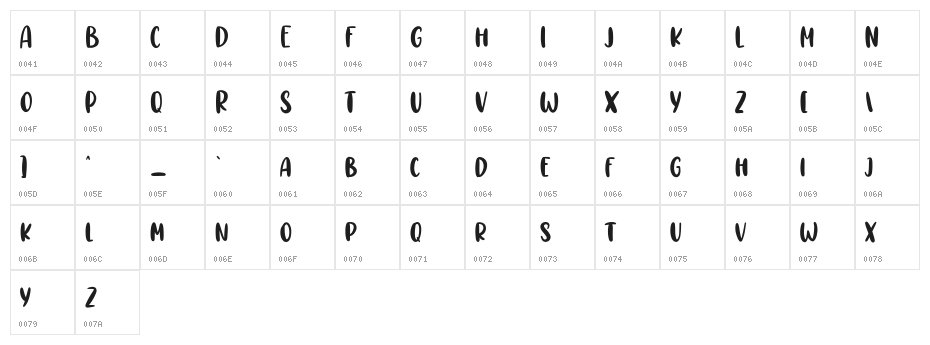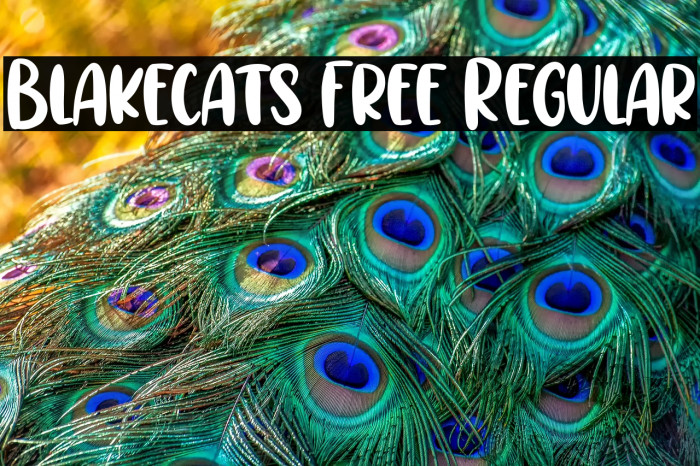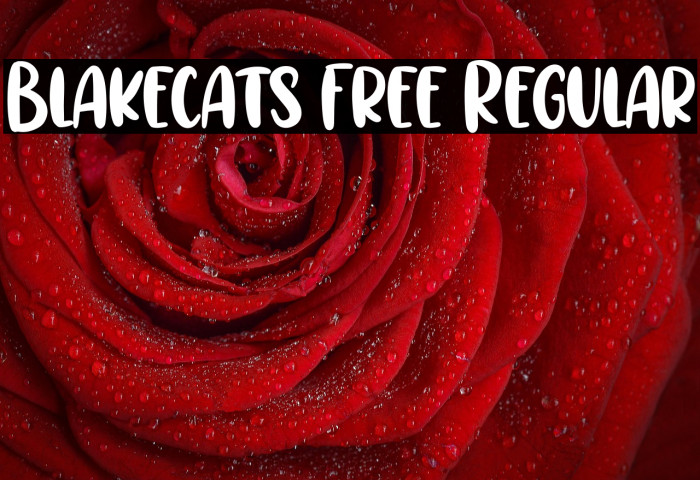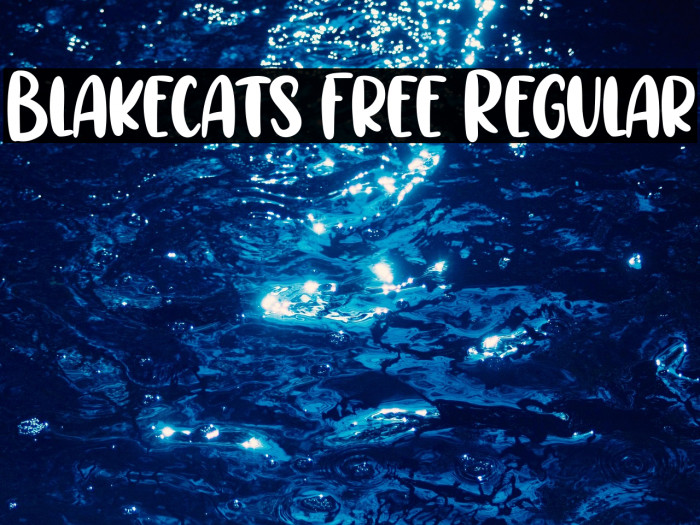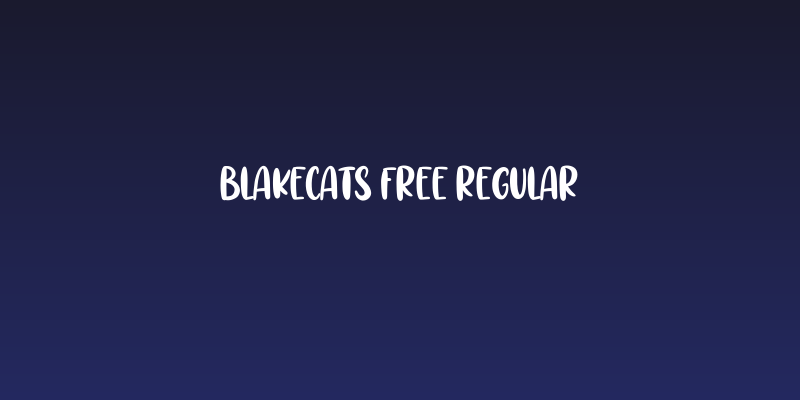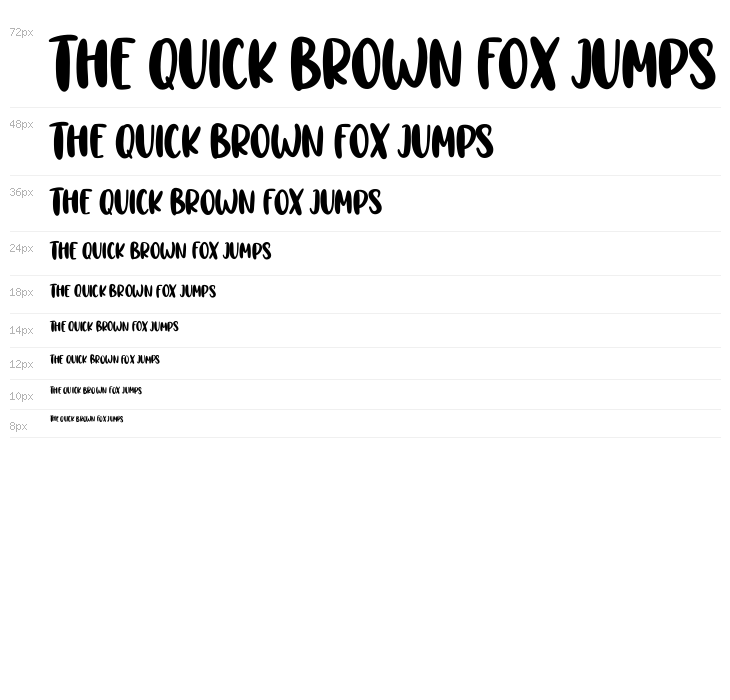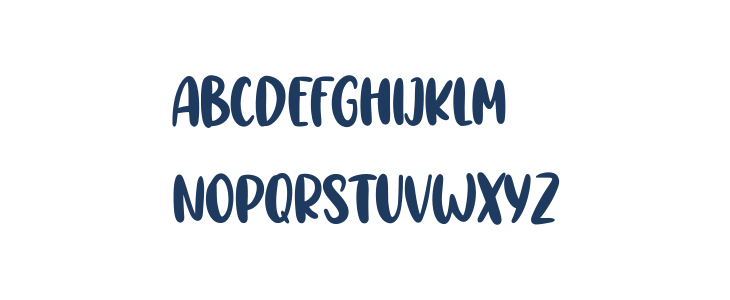
Blakecats Free Regular Font
Blakecats Free Regular Description
This font features a playful and bold handwritten style, characterized by its rounded edges and smooth curves. The letters are uniformly thick, giving a consistent and cohesive appearance across all characters. The uppercase and lowercase letters maintain a friendly and approachable aesthetic, making it suitable for informal and creative projects. The font's design is modern yet retains a touch of whimsy, which can add a personal and unique touch to any design. Its legibility is high, even at smaller sizes, due to the clear and distinct letterforms.
| Use Case | Logos, Headlines, Informal Text |
| Proposed Projects | Ideal for greeting cards, children's books, playful branding, and social media graphics. |